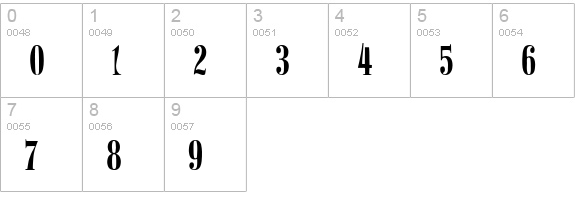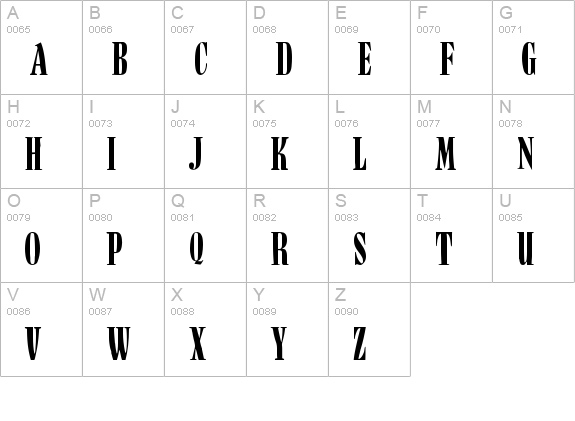
BudNull Medium Font Details
BudNull Medium is a balanced, medium-weight variant in the BudNull typeface family \xE2\x80\x94 well suited to sub-headlines, navigation, and balanced editorial work.
BudNull Medium font is a versatile and modern typeface that strikes the perfect balance between elegance and readability. With its clean lines and subtle curves, this font is suitable for a wide range of design projects, from branding to editorial design. The medium weight of BudNull gives it a strong presence on the page without being overpowering, making it an ideal choice for headlines and body text alike. The best part? BudNull Medium font is completely free to download at FontsMarket.com! This means you can elevate your designs without breaking the bank. Don't miss out on this opportunity to add a touch of sophistication to your projects with BudNull Medium font. Download it today and see the difference it can make in your design work.